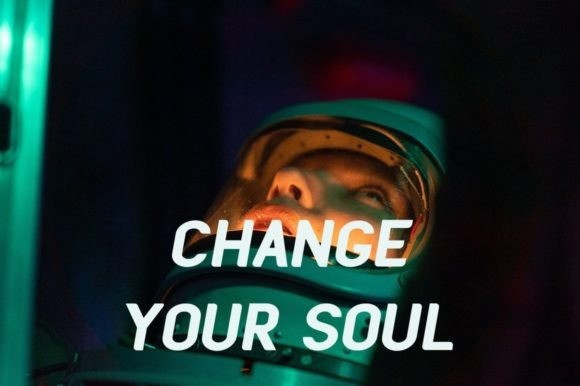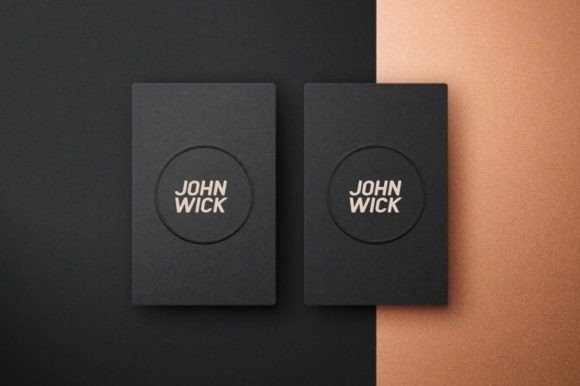
BRONEX Sans Serif Font is a modern sans serif font that comes in a variety of weights, ranging from Thin to Heavy. It has a high body, making it easy to read even in small sizes. The font includes 494 glyphs, which allow for a wide range of typographic possibilities.
In addition to the regular weight, “BRONEX Typeface” also includes a condensed version, which is ideal for situations where space is limited. The font supports Private Use Area (PUA) encoding, allowing you to access special characters and symbols that are not available in standard character sets.
Overall, “BRONEX Typeface” is a versatile font family that can be used in a variety of design contexts, from branding and advertising to editorial and web design. Its clean and modern aesthetic make it a popular choice for designers looking for a fresh and contemporary look.
Designer Name: | Alit Design |